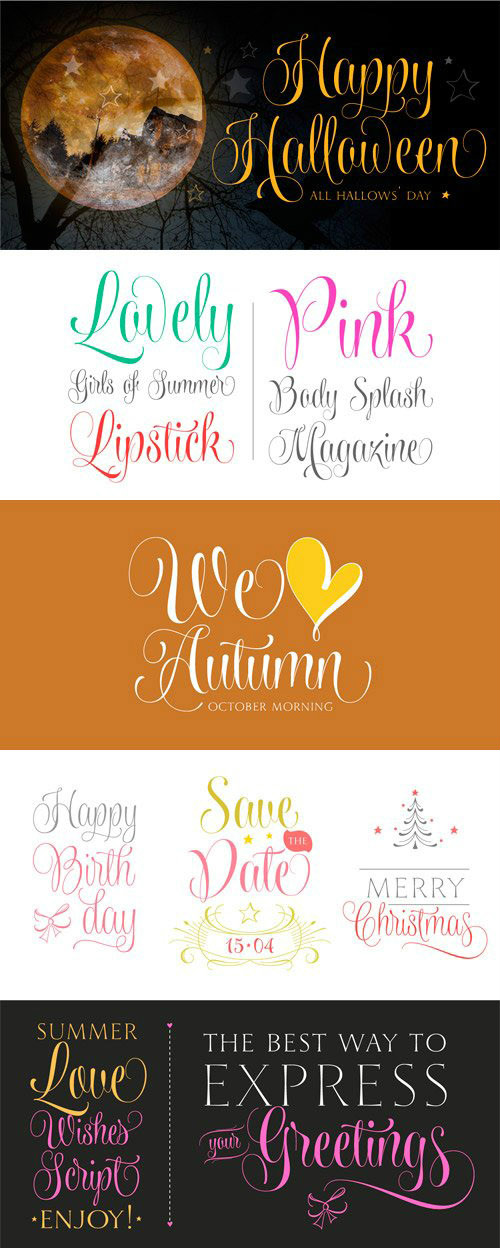
50 Free Cursive Handwritten Fonts To Spice Up Your Design Hongkiat. Wish is a free hand lettering script font from rabia coskun. To download free, scroll down to. We shared wishes script font that is amazing morning typefaces. Use this fun font in your next project for branding, headers, apparel, posters, invitations and much more. Buy wishes script font from typesenses on fonts.com. Wishes script font has more than 990 glyphs as well as a set of 197 ornaments. This beautiful free script font features unique wavy brush strokes that are inspired by nature. Check it for free with typograph. Months (1) montic script font (1) moonbringht script font (1) motocross academy (9) must download (35) my (1) my collection (8) best free office suite (0) my faves (2) my font (1) my fonts (7) my fonts (1) my logo (4) myclct (7) myfonts (3) mystery (1) mystery (2) neeeww (1) new. Wishes script is available as a desktop font and a web font. Free fonts often have not all characters and signs, and have no kerning pairs (avenue ↔ a venue, tea ↔ t ea). In times similar to the one black gate may be in reality what you need. Homepage fonts categories fonts online script. So it is very unlikely to get so many features like this in any font. Those fonts are outstanding for branding responsibilities for producers that need to face out and be perceived as real and bold.
Free free font otf script font true type ttf typefaces typography wishes wishes script font woff. Wishes script font has more than 990 glyphs as well as a set of 197 ornaments. Wishes script pro text light. Contact the authors at www.fulltimeartists.com or www.graffitifonts.net for licensing information. Wishes script is the best way to express your greetings! Wishes script pro display is free for personal use only. This regular typeface is one of the most famous typefaces of disney.
This resource comes from other websites and we cannot confirm its legitimacy. Buy wishes script font from typesenses on fonts.com. Wish is a free hand lettering script font from rabia coskun. This resource comes from other websites and we cannot confirm its legitimacy. Searching for fonts that look like wishes script? Script typefaces are based upon the varied and often fluid stroke created by handwriting, pretty much like the cursive fonts just typically more elegant. This demo font is for personal use only! Download the wishper script font by nurf designs. Those fonts are outstanding for branding responsibilities for producers that need to face out and be perceived as real and bold. It contains uppercase and lowercase numbers, symbols this font will meet your requests and will draw your attention as it is natural and simple. In times similar to the one black gate may be in reality what you need. Wishes script is the best way to express your greetings! Frames, ribbons, hearts, flowers, ornaments, swashes. Wishes script pro display is free for personal use only. Wishes script is the best way to express your greetings! To download free, scroll down to. In times similar to the one black gate may be in reality what you need. Wishes script font has more than 990 glyphs as well as a set of 197 ornaments. Fabulous free wedding script fonts | wedding ideas. By installing or using this font, you are agree to the product usage agreement They are organized into highly regular formal types similar to cursive writing and looser, more casual scripts. Youtube sans font free download. All you want to say is more gorgeous when using this pretty font, since it beautifies every message. With over 8,000 freeware fonts, you've come to the. Homepage fonts categories fonts online script. Programed with open type, wishes offers the designer a complete range of possibilities: Months (1) montic script font (1) moonbringht script font (1) motocross academy (9) must download (35) my (1) my collection (8) best free office suite (0) my faves (2) my font (1) my fonts (7) my fonts (1) my logo (4) myclct (7) myfonts (3) mystery (1) mystery (2) neeeww (1) new. Plenty of swashes, ligatures, beginning and ending shapes, wishes is a wit option for invitations, cards, stationery, fashion and ap. This regular typeface is one of the most famous typefaces of disney. Helvetica fonts complete family free download. Trials are for evaluation purposes only.
Wishes Script Caps Display Font Free For Personal. Buy wishes script font from typesenses on fonts.com. This beautiful free script font features unique wavy brush strokes that are inspired by nature. Wish is a free hand lettering script font from rabia coskun. Check it for free with typograph. Use this fun font in your next project for branding, headers, apparel, posters, invitations and much more. Wishes script font has more than 990 glyphs as well as a set of 197 ornaments. We shared wishes script font that is amazing morning typefaces. In times similar to the one black gate may be in reality what you need. To download free, scroll down to. Homepage fonts categories fonts online script. So it is very unlikely to get so many features like this in any font. Months (1) montic script font (1) moonbringht script font (1) motocross academy (9) must download (35) my (1) my collection (8) best free office suite (0) my faves (2) my font (1) my fonts (7) my fonts (1) my logo (4) myclct (7) myfonts (3) mystery (1) mystery (2) neeeww (1) new. Wishes script is available as a desktop font and a web font. Those fonts are outstanding for branding responsibilities for producers that need to face out and be perceived as real and bold. Free fonts often have not all characters and signs, and have no kerning pairs (avenue ↔ a venue, tea ↔ t ea).
Wishper Script Font Dafont Com. We shared wishes script font that is amazing morning typefaces. Wishes script font has more than 990 glyphs as well as a set of 197 ornaments. To download free, scroll down to. Check it for free with typograph. This beautiful free script font features unique wavy brush strokes that are inspired by nature. So it is very unlikely to get so many features like this in any font. Use this fun font in your next project for branding, headers, apparel, posters, invitations and much more. Buy wishes script font from typesenses on fonts.com. Wish is a free hand lettering script font from rabia coskun. In times similar to the one black gate may be in reality what you need. Wishes script is available as a desktop font and a web font. Free fonts often have not all characters and signs, and have no kerning pairs (avenue ↔ a venue, tea ↔ t ea). Homepage fonts categories fonts online script. Months (1) montic script font (1) moonbringht script font (1) motocross academy (9) must download (35) my (1) my collection (8) best free office suite (0) my faves (2) my font (1) my fonts (7) my fonts (1) my logo (4) myclct (7) myfonts (3) mystery (1) mystery (2) neeeww (1) new. Those fonts are outstanding for branding responsibilities for producers that need to face out and be perceived as real and bold.
50 Free Cursive Handwritten Fonts To Spice Up Your Design Hongkiat. So it is very unlikely to get so many features like this in any font. We shared wishes script font that is amazing morning typefaces. Free fonts often have not all characters and signs, and have no kerning pairs (avenue ↔ a venue, tea ↔ t ea). To download free, scroll down to. Use this fun font in your next project for branding, headers, apparel, posters, invitations and much more. Months (1) montic script font (1) moonbringht script font (1) motocross academy (9) must download (35) my (1) my collection (8) best free office suite (0) my faves (2) my font (1) my fonts (7) my fonts (1) my logo (4) myclct (7) myfonts (3) mystery (1) mystery (2) neeeww (1) new. Wishes script is available as a desktop font and a web font. Those fonts are outstanding for branding responsibilities for producers that need to face out and be perceived as real and bold. Buy wishes script font from typesenses on fonts.com. In times similar to the one black gate may be in reality what you need. Wishes script font has more than 990 glyphs as well as a set of 197 ornaments. Check it for free with typograph. This beautiful free script font features unique wavy brush strokes that are inspired by nature. Homepage fonts categories fonts online script. Wish is a free hand lettering script font from rabia coskun.
18 Beautiful Free Premium Script Fonts Elegant Themes Blog. Wish is a free hand lettering script font from rabia coskun. To download free, scroll down to. Wishes script font has more than 990 glyphs as well as a set of 197 ornaments. Use this fun font in your next project for branding, headers, apparel, posters, invitations and much more. Free fonts often have not all characters and signs, and have no kerning pairs (avenue ↔ a venue, tea ↔ t ea). Wishes script is available as a desktop font and a web font. We shared wishes script font that is amazing morning typefaces. Those fonts are outstanding for branding responsibilities for producers that need to face out and be perceived as real and bold. Buy wishes script font from typesenses on fonts.com. Months (1) montic script font (1) moonbringht script font (1) motocross academy (9) must download (35) my (1) my collection (8) best free office suite (0) my faves (2) my font (1) my fonts (7) my fonts (1) my logo (4) myclct (7) myfonts (3) mystery (1) mystery (2) neeeww (1) new. So it is very unlikely to get so many features like this in any font. Homepage fonts categories fonts online script. Check it for free with typograph. This beautiful free script font features unique wavy brush strokes that are inspired by nature. In times similar to the one black gate may be in reality what you need.
Free for personal & commercial use. Frames, ribbons, hearts, flowers, ornaments, swashes. Similar free fonts for wishes script pro text. Wishes script is the best way to express your greetings! Searching for fonts that look like wishes script? We shared wishes script font that is amazing morning typefaces. Months (1) montic script font (1) moonbringht script font (1) motocross academy (9) must download (35) my (1) my collection (8) best free office suite (0) my faves (2) my font (1) my fonts (7) my fonts (1) my logo (4) myclct (7) myfonts (3) mystery (1) mystery (2) neeeww (1) new. They are organized into highly regular formal types similar to cursive writing and looser, more casual scripts. Plenty of swashes, ligatures, beginning and ending shapes, wishes is a wit option for invitations, cards, stationery, fashion and ap. All you want to say is more gorgeous when using this pretty font, since it beautifies every message.